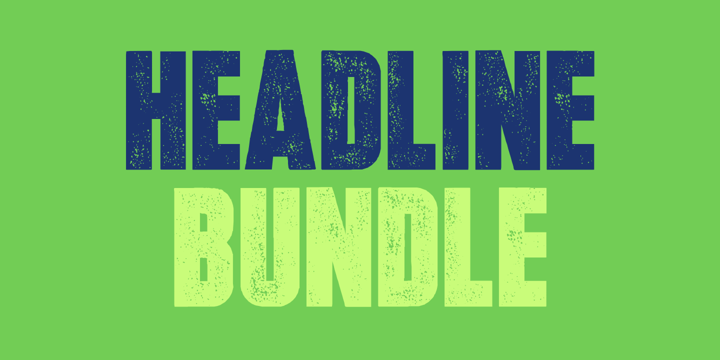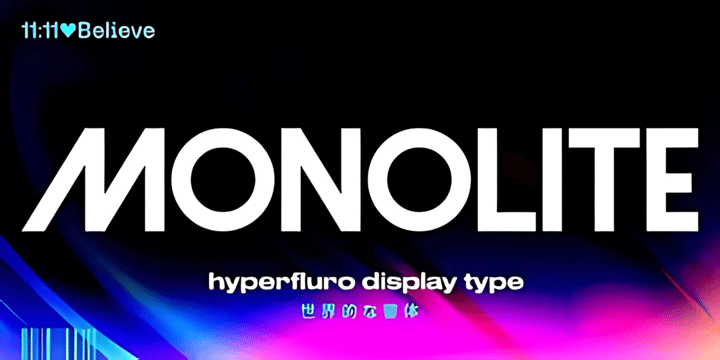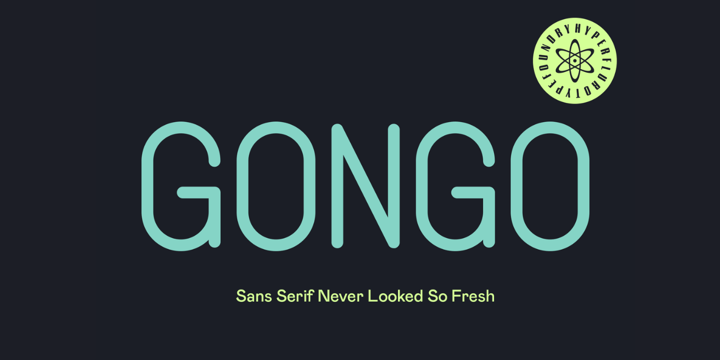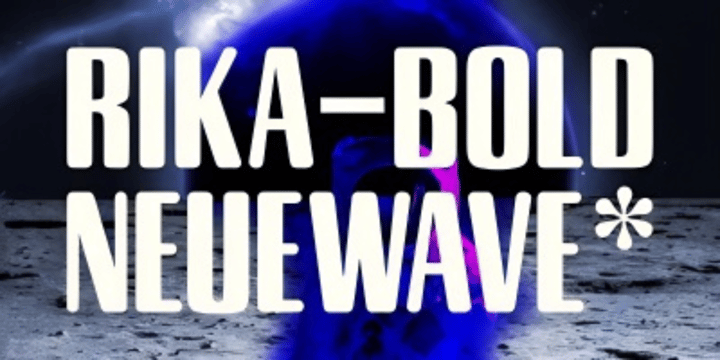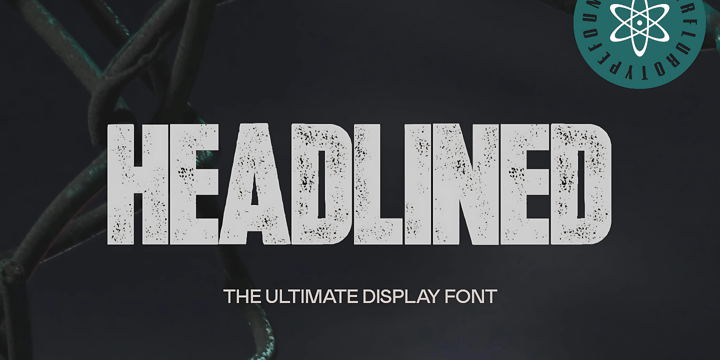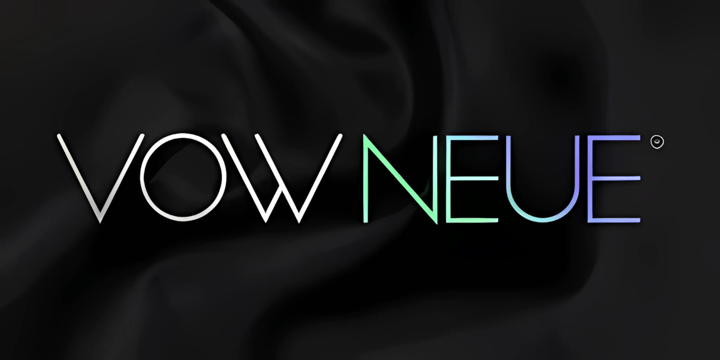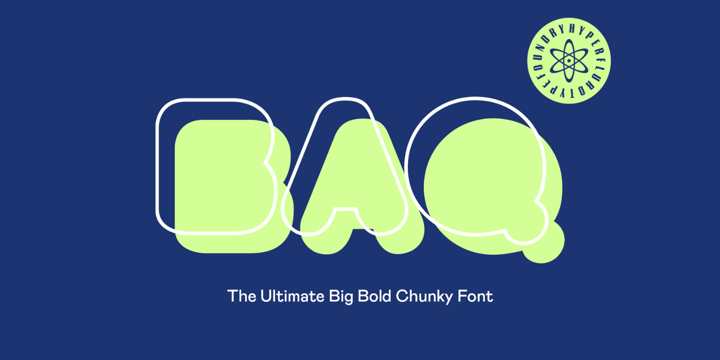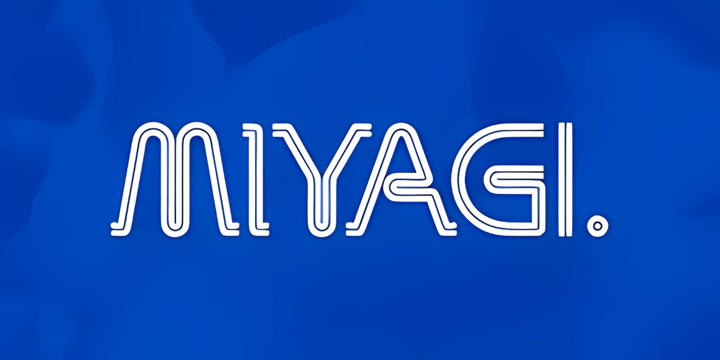
The Ultimate Font Bundle for Bold Statements
HEADLINE – The Ultimate Font Bundle for Bold Statements
Make every word count with HEADLINE, a premium font bundle crafted for impact. Designed for designers, creators, and brands who aren’t afraid to stand out, this collection delivers uncompromising presence and clarity in every character.
Featuring a curated mix of display fonts, bold sans-serifs, and expressive serifs, HEADLINE is your go-to toolkit for everything from posters and branding to social media, magazine layouts, and website headers. Whether you’re shouting from the rooftops or whispering with style, there’s a typeface in this bundle built for the job.
11+ Professional Typefaces — A versatile mix of weights, styles, and moods
All Caps Display Fonts — Designed to grab attention fast
Bold Sans-Serifs — Clean, confident, and made for headlines
Stylish Serifs — Perfect for editorial vibes and luxury branding
Multilingual Support — Speak your message across languages